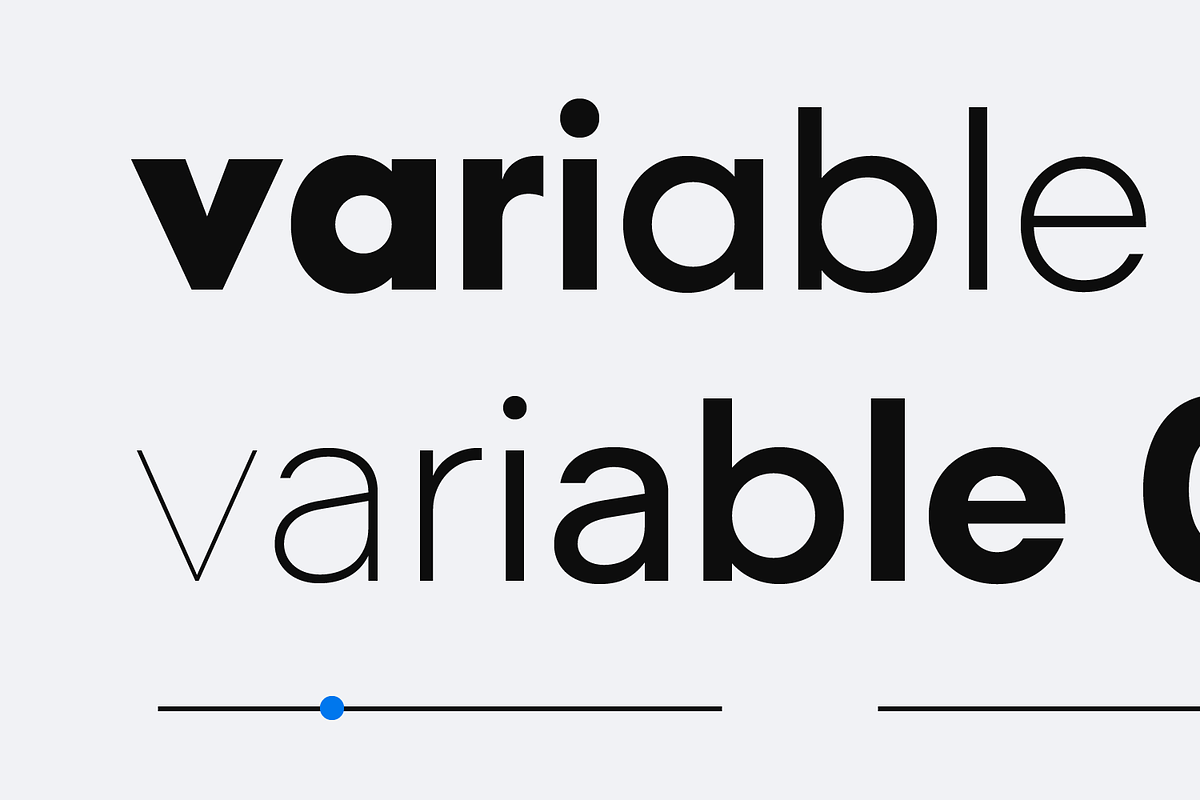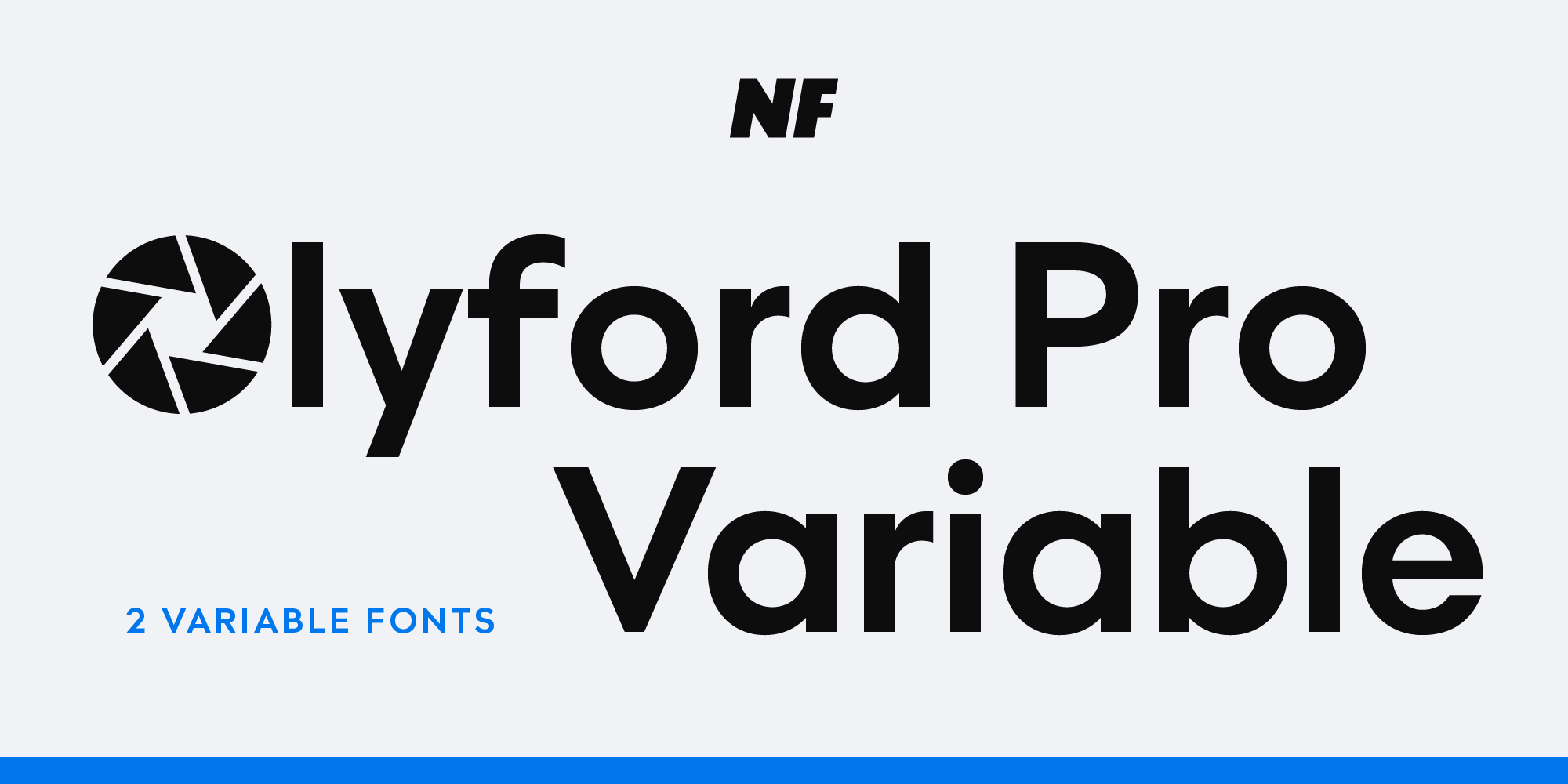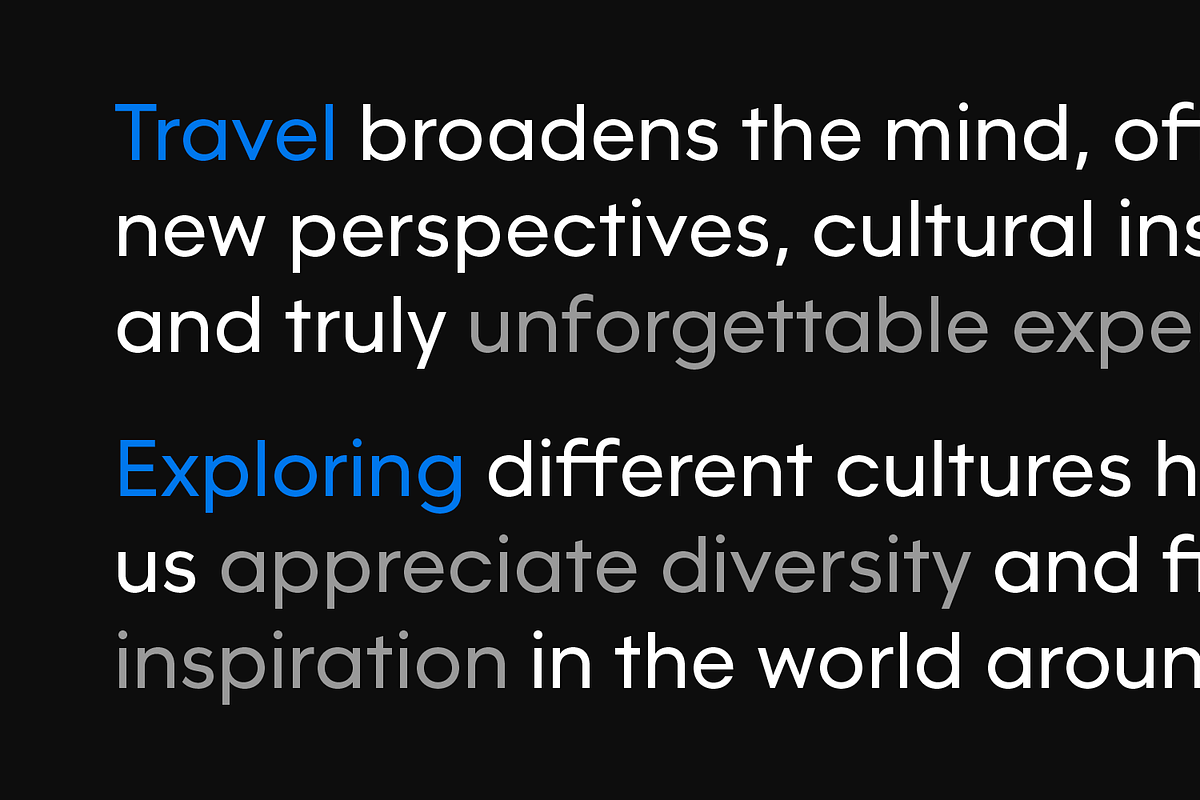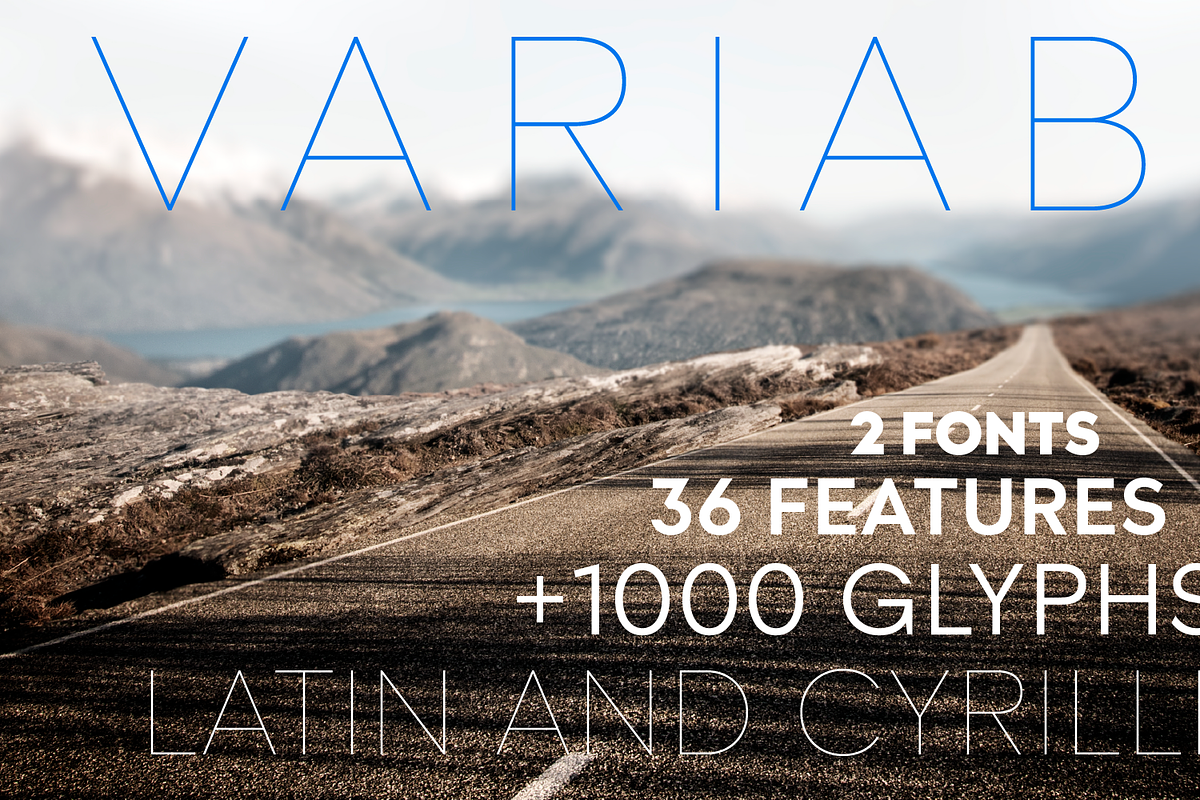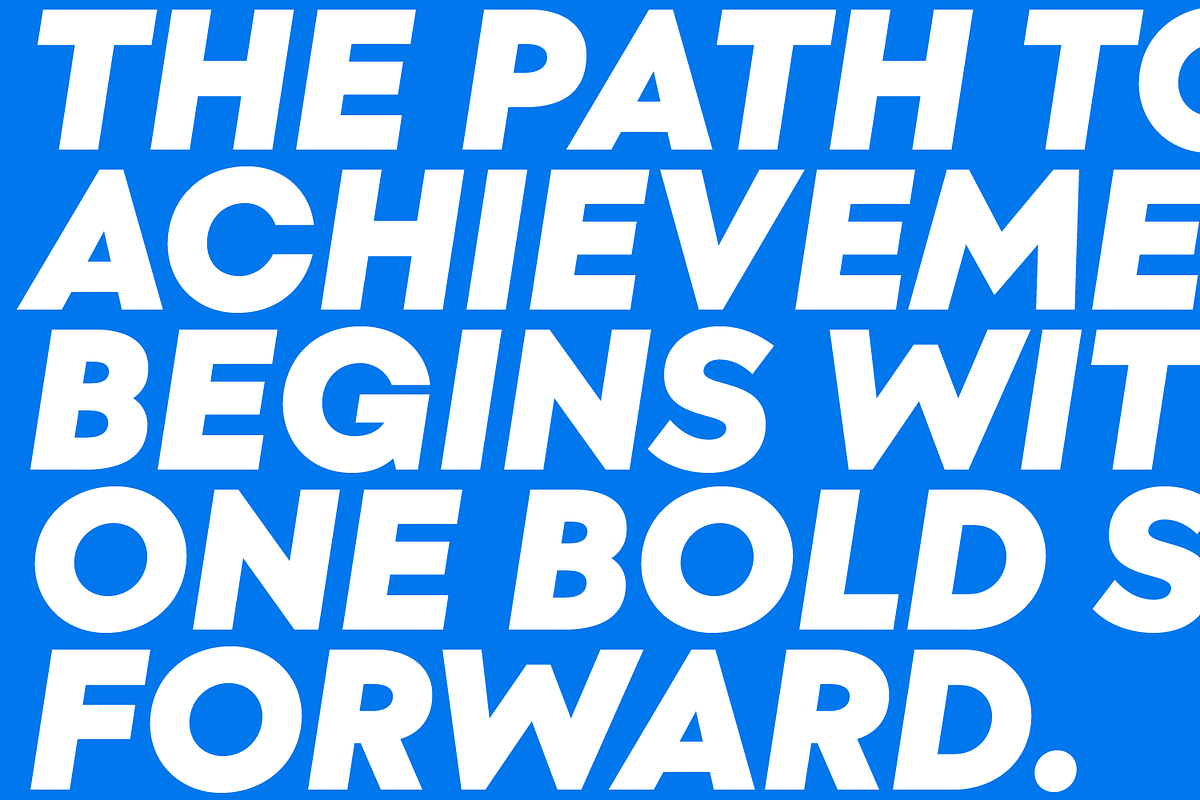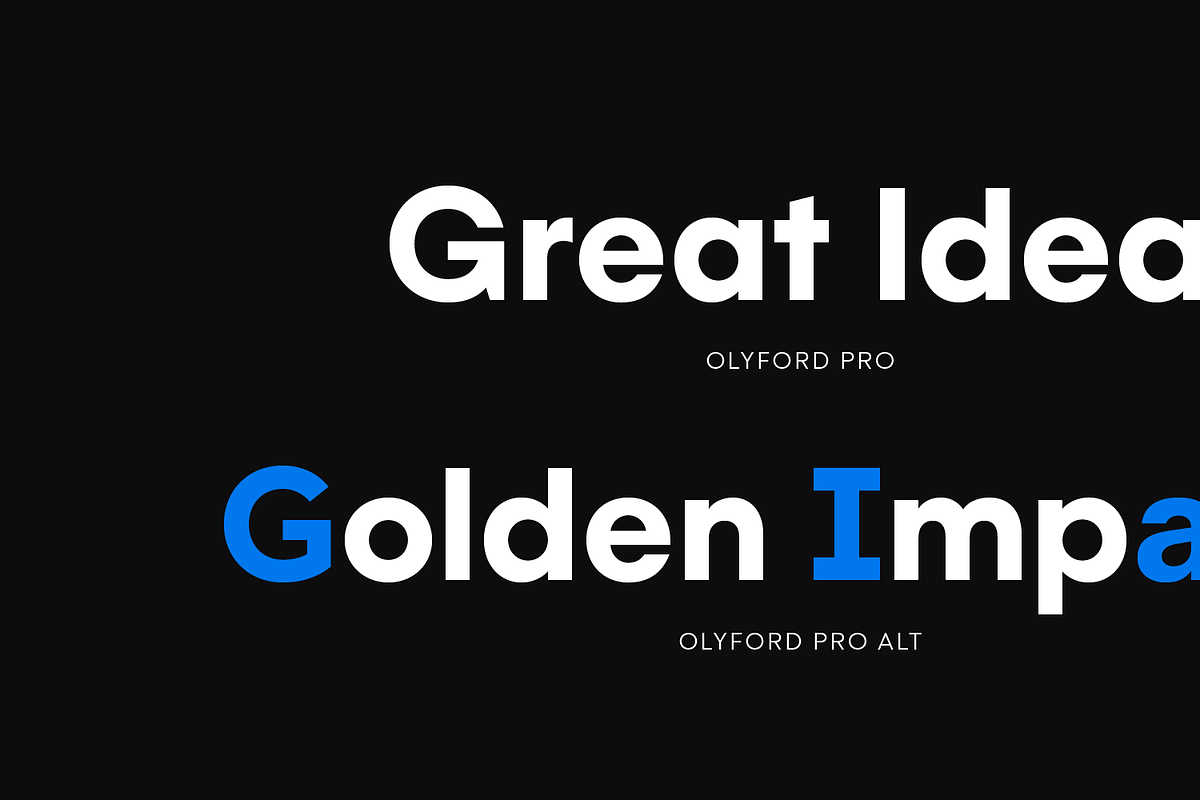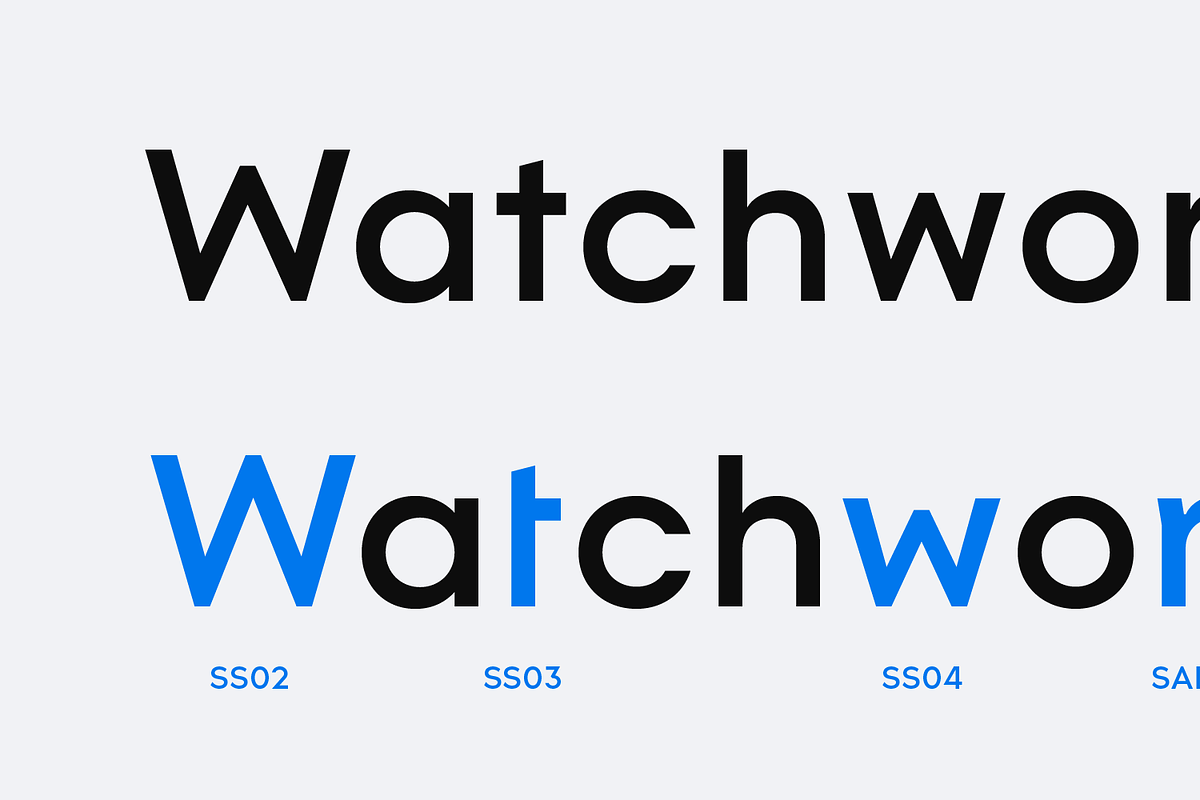
Olyford Pro Variable Fonts
Olyford Pro Variable and Olyford Pro Alt Variable are two dynamic additions to the Olyford Pro font family. They feature a full range of weights from Thin to Heavy, along with matching true italics. Olyford Pro Alt Variable includes alternate designs for G, I, and a, adding even more versatility. With 1100 glyphs, 40 OpenType features, support for Latin, Cyrillic and Greek, and flexibility, Olyford Pro Variable and Olyford Pro Alt Variable are highly adaptable choices for a wide range of design projects.